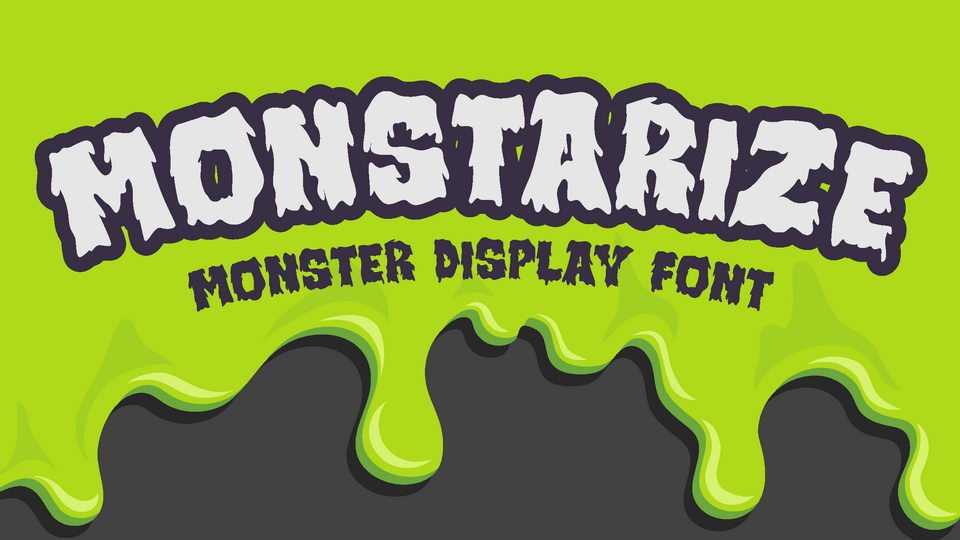
Download Monstarize font, a display typeface with that slimy dripping, bring all terror and scare to all your viewer. Suit perfectly for Online Games, poster, movie title, fast food menu, magazine, youtube covers, youtube thumbnails, social media page covers and so on…